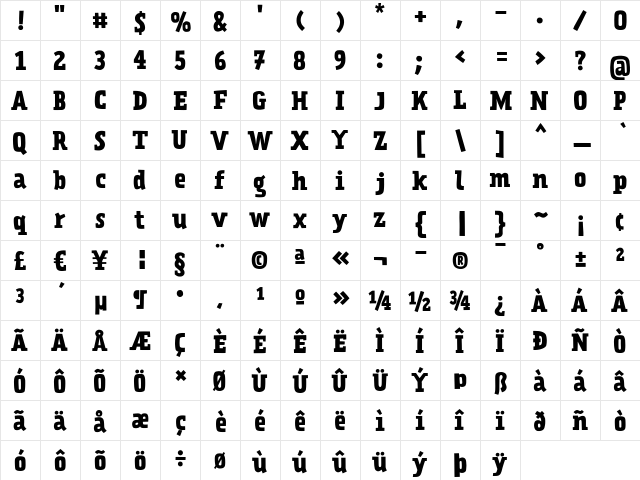
PraterSerifOne-Bold Bold
| Foundry | Steffen Sauerteig, Henning Wagenbreth, published by Fontshop International for the FontFont library |
PraterSerifOne-Bold carries the refined structure of traditional serif typography, with bracketed terminals and considered proportions that communicate credibility and craft. Its bold stroke weight gives it real presence on the page.